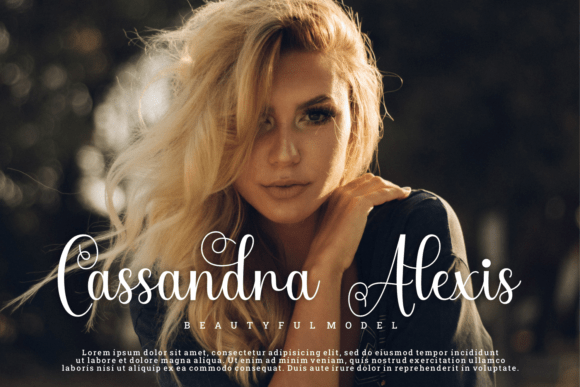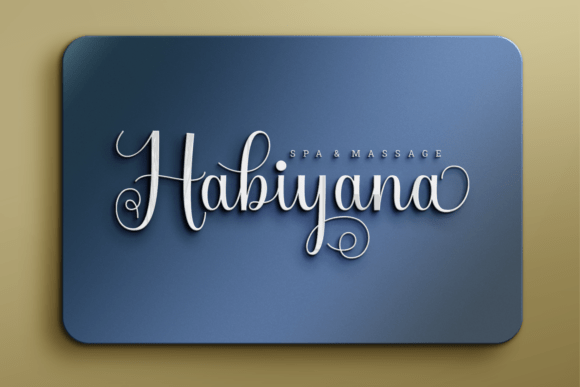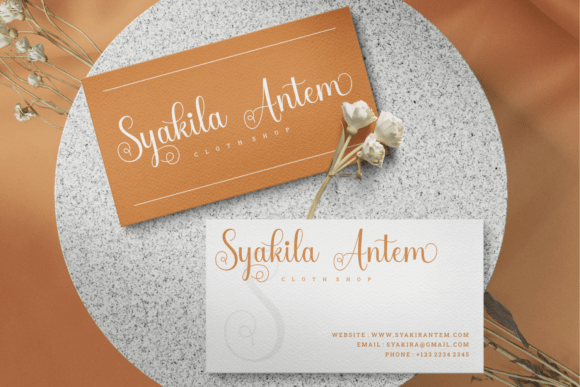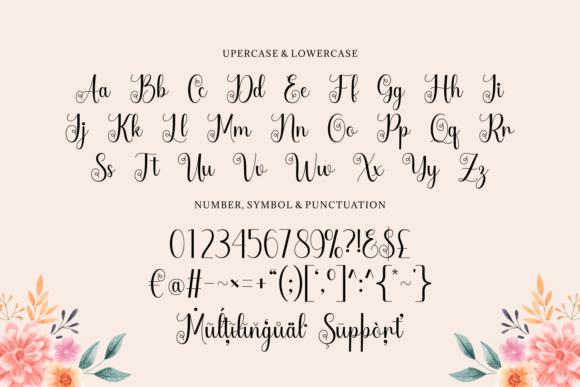
Introducing Balistya: The Elegant Modern Script Font for Luxurious Designs
In the world of typography, a new font has emerged that is set to revolutionize the way we approach elegant and sophisticated designs. Meet “Balistya”, a modern script font that seamlessly blends traditional calligraphy with a contemporary twist. This stunning font is perfect for designers and crafters looking to add a touch of luxury to their branding, wedding invitations, stationery, and more.
The Beauty of Balistya
Balistya is characterized by its graceful curves, flowing swashes, and impeccable balance. The refined letterforms bring a sense of romance and artistry to any design, making it perfect for projects that require a high-end touch. The font’s elegant appearance is complemented by delicate floral accents, which add a touch of whimsy and sophistication. Whether you’re designing a wedding invitation or a luxury brand logo, Balistya is the perfect choice.
Perfect for Luxurious Branding
Balistya is designed to help you create luxurious branding that stands out from the crowd. Its sophisticated and elegant appearance makes it perfect for high-end brands, boutiques, and luxury products. With Balistya, you can create a brand identity that exudes elegance, refinement, and sophistication. The font’s versatility allows you to use it for a wide range of applications, from business cards to billboards.
Wedding Invitations and Stationery
Balistya is also perfect for wedding invitations, stationery, and other paper crafts. The font’s romantic and elegant appearance makes it ideal for creating beautiful and memorable wedding invitations. Whether you’re a designer or a crafty DIY bride, Balistya is the perfect choice for creating stunning wedding stationery that will leave a lasting impression.
Key Features of Balistya
- Elegant and sophisticated design: Balistya’s refined letterforms and flowing swashes make it perfect for creating luxurious designs.
- Delicate floral accents: The font’s delicate floral accents add a touch of whimsy and sophistication to any design.
- Versatile and flexible: Balistya can be used for a wide range of applications, from branding to wedding invitations.
- High-end appearance: The font’s elegant appearance makes it perfect for high-end brands, boutiques, and luxury products.
Why Choose Balistya?
There are many script fonts available, but Balistya stands out from the crowd. Here are just a few reasons why:
- Unique and distinctive: Balistya’s elegant and sophisticated design makes it perfect for designers looking to create unique and distinctive designs.
- Easy to read and use: Despite its elegant appearance, Balistya is easy to read and use, making it perfect for a wide range of applications.
- High-quality design: Balistya is designed to the highest standards, ensuring that your designs look professional and polished.
In conclusion, Balistya is a stunning modern script font that is perfect for designers and crafters looking to add a touch of luxury to their designs. With its elegant and sophisticated appearance, delicate floral accents, and versatility, Balistya is the perfect choice for a wide range of applications. Whether you’re designing a luxury brand logo, wedding invitation, or elegant stationery, Balistya is the perfect font for you.